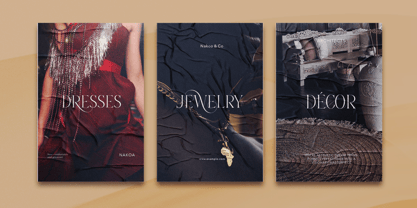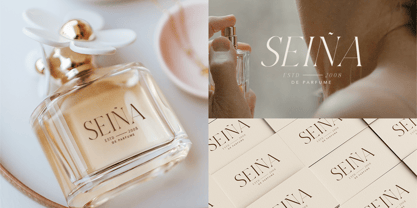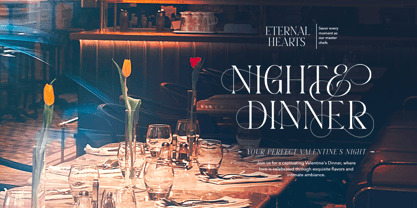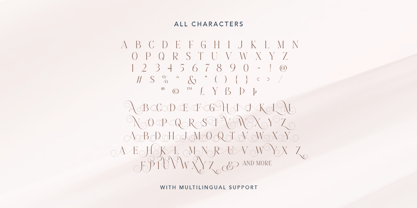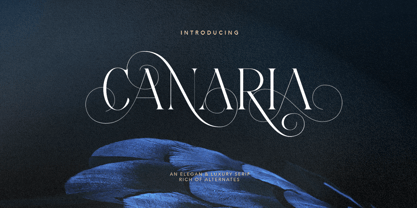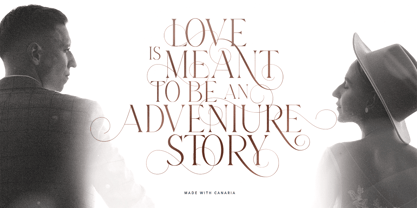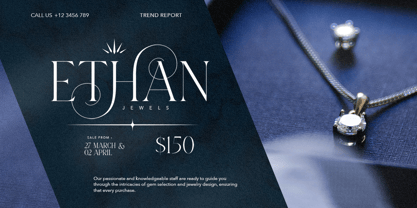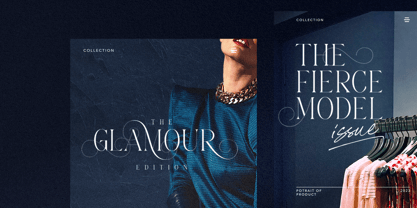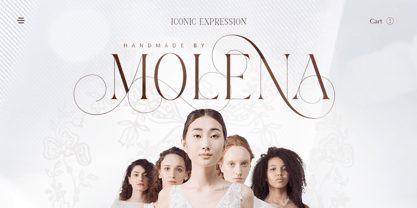
Canaria
The Canaria Font Family was designed by Dzikrul Aulia and published by Bale Type. Canaria contains 2 styles and family package options. More about this family
Canaria is a beautiful and fancy light serif typeface in all capital letters, featuring a variety of ligatures and alternate characters. It is well-suited for a wide range of projects, particularly those aiming for an elegant and luxurious aesthetic. Enhance the visual appeal by integrating ligatures and alternates with the standard base. Additionally, this font supports multiple languages, providing versatility for various linguistic needs!